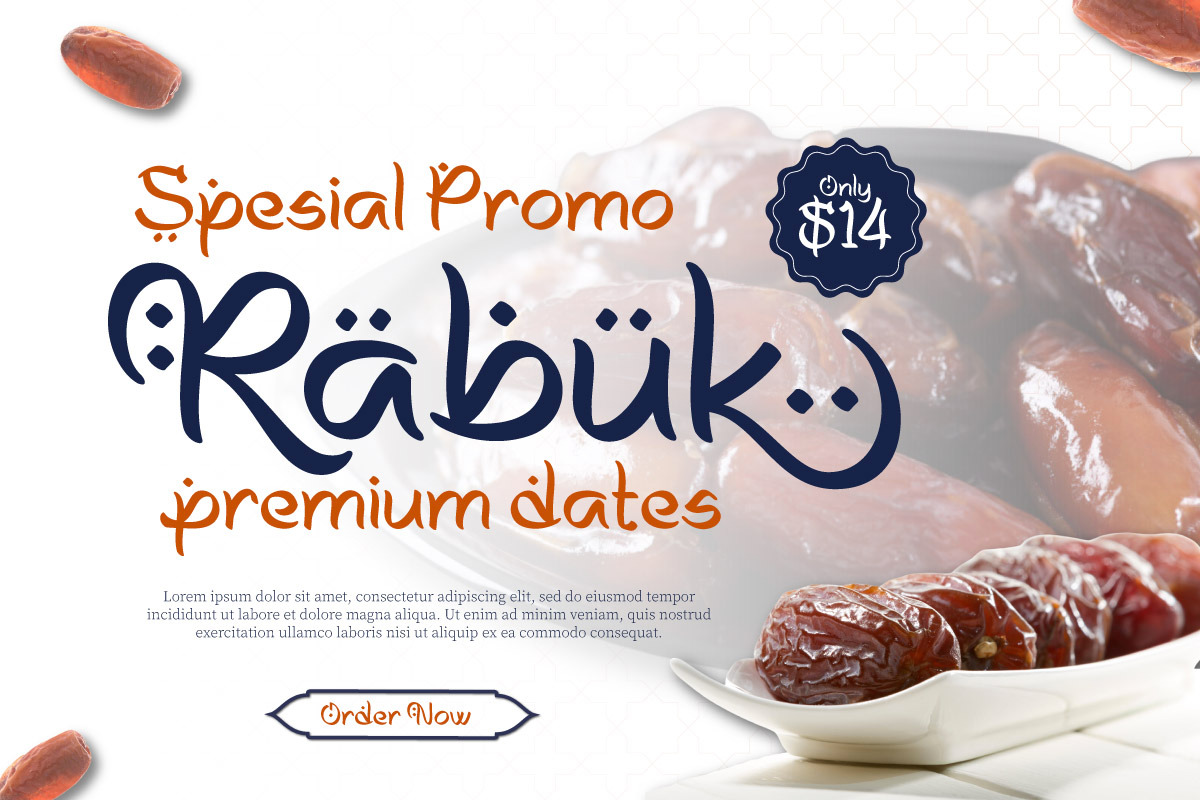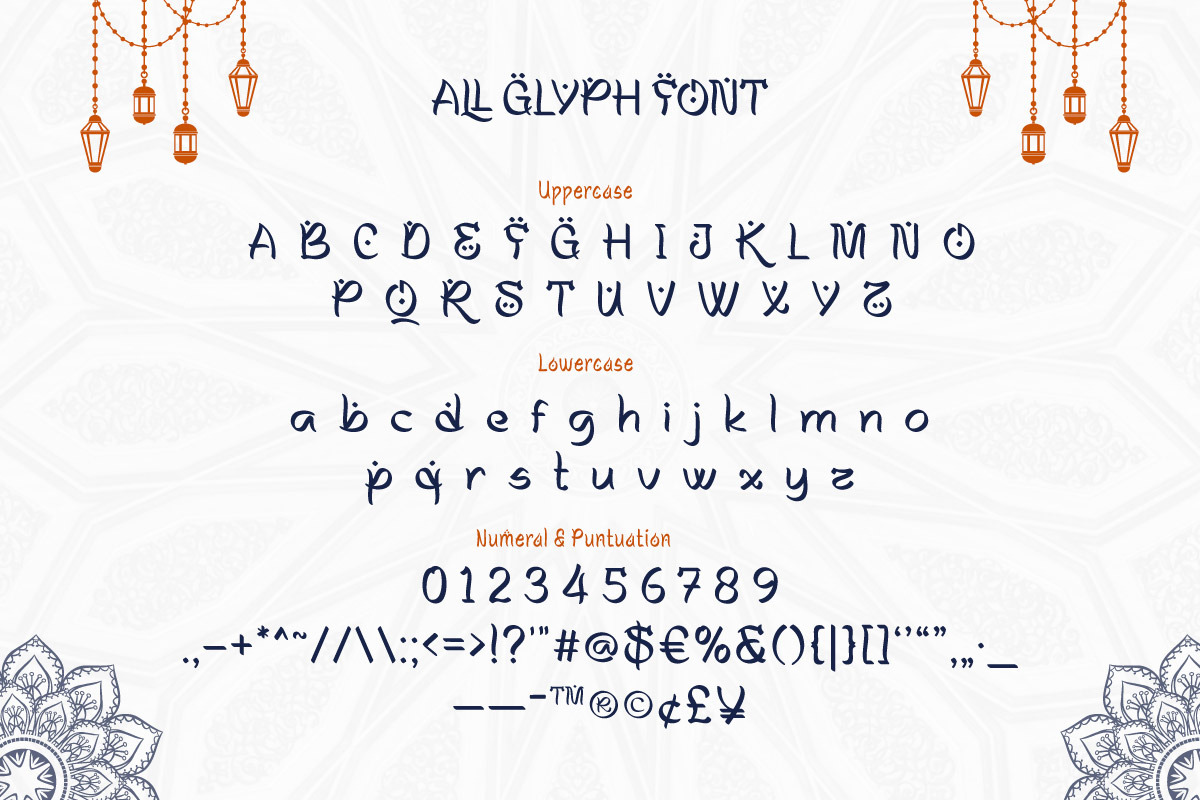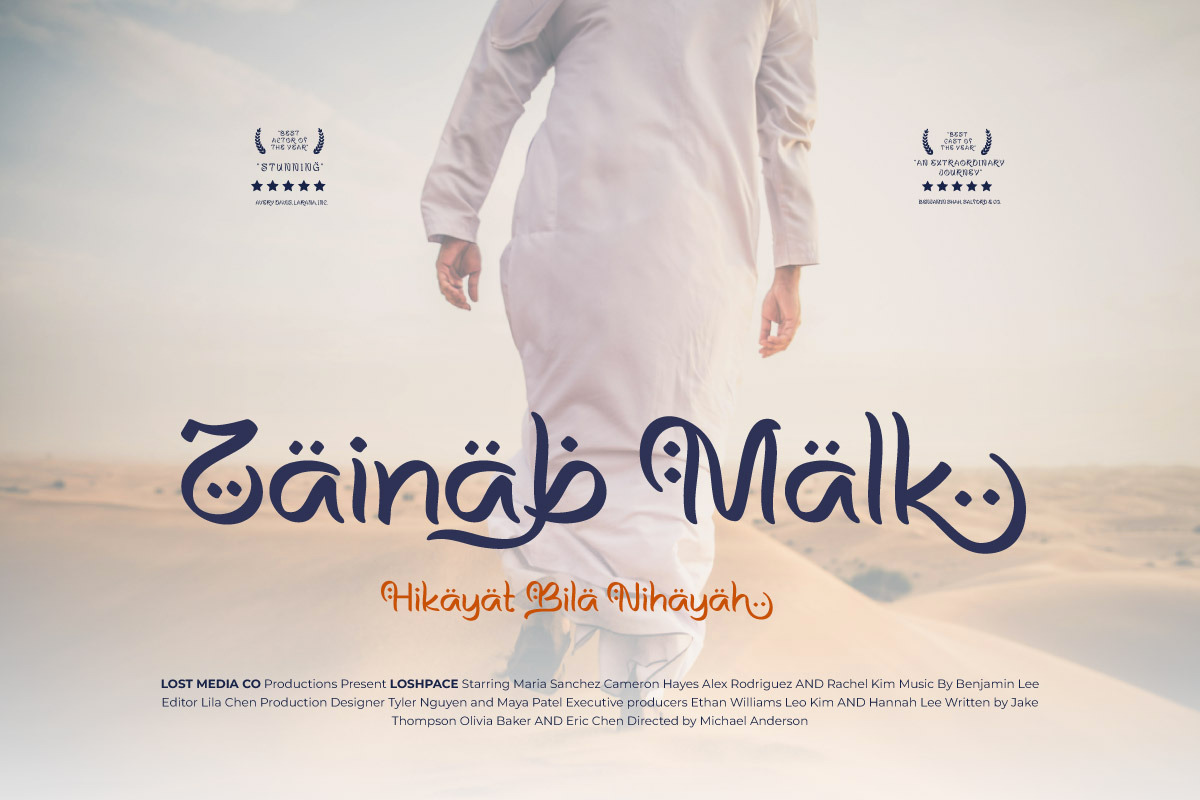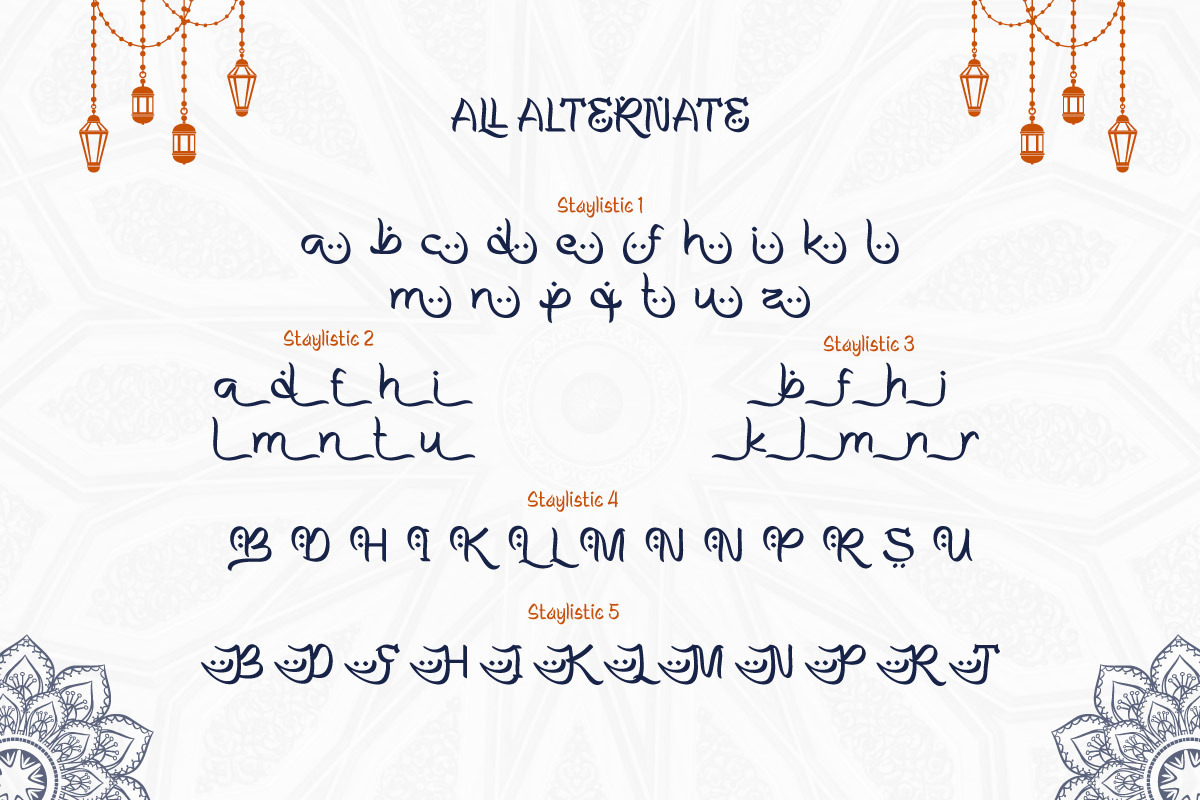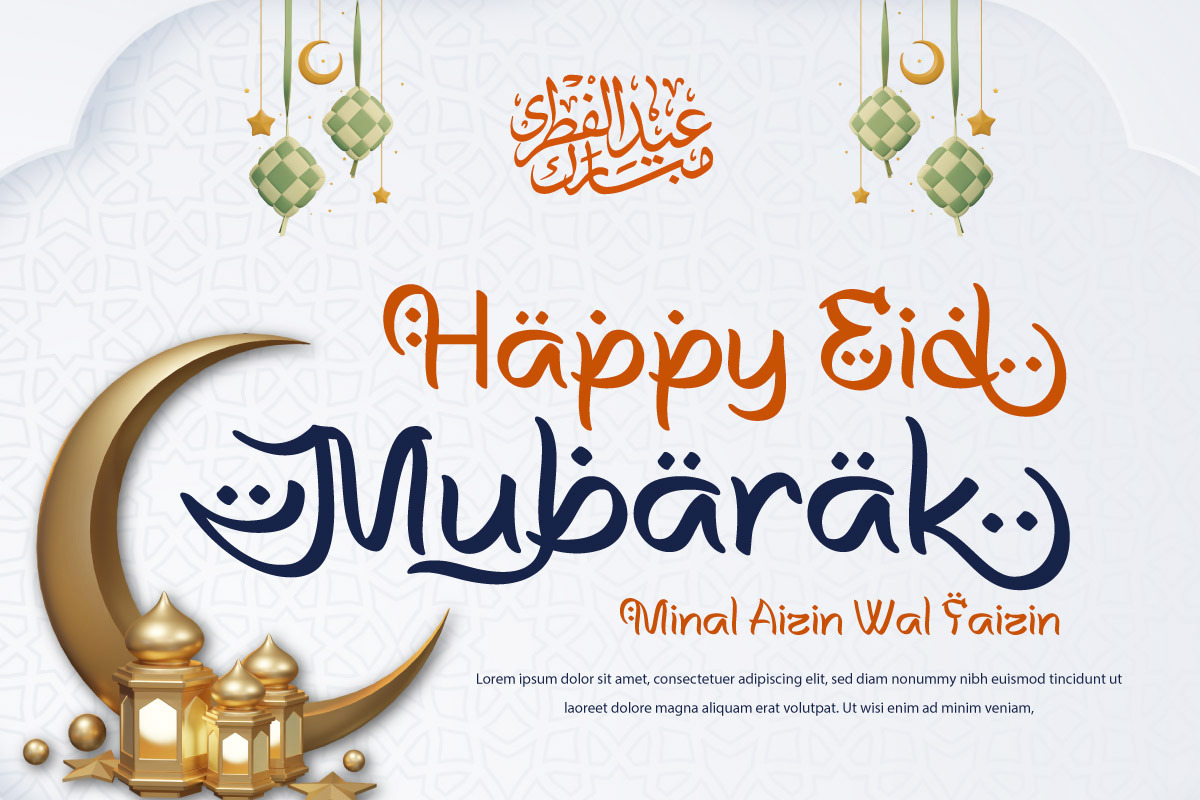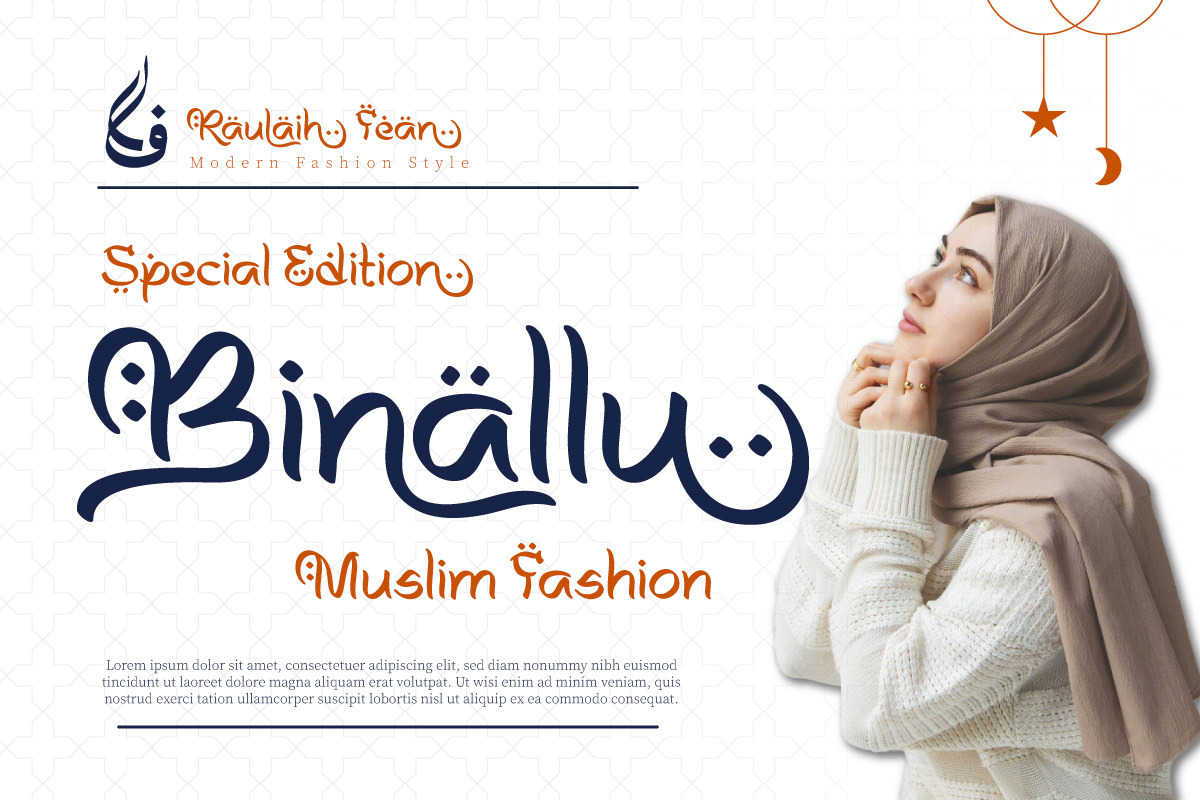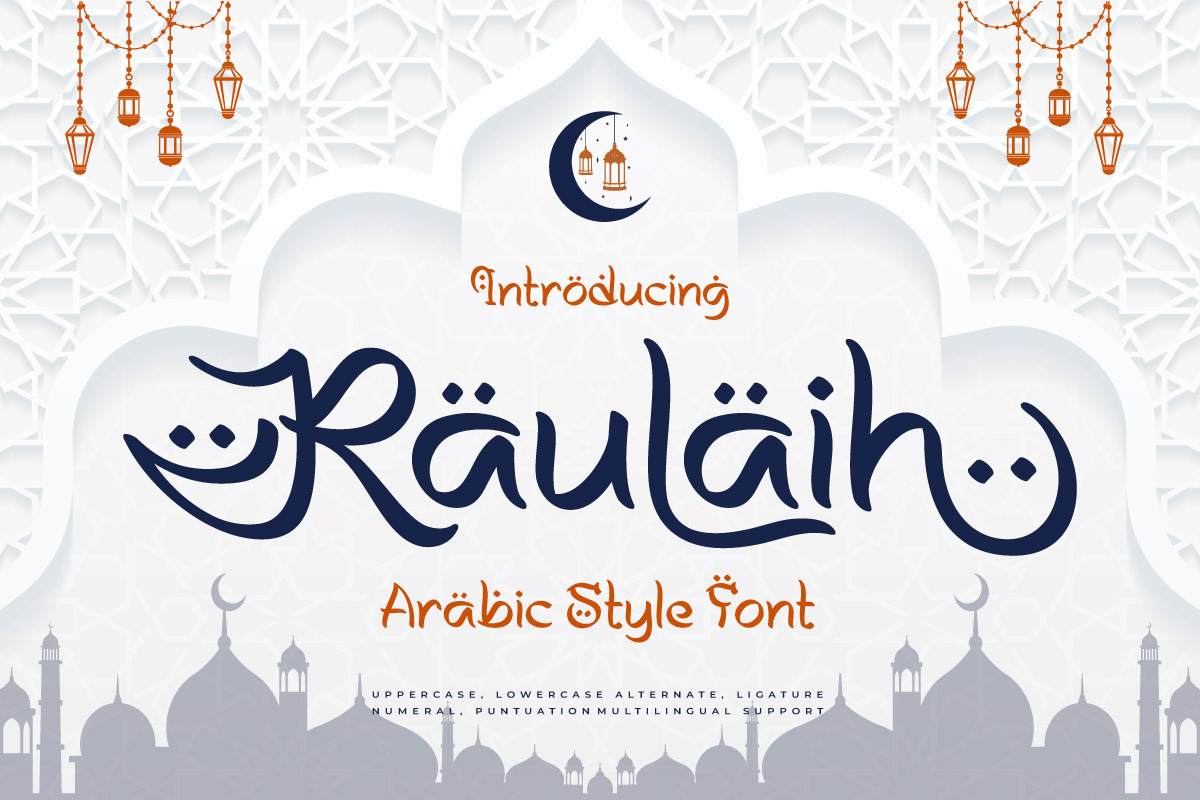
Raulaih - Arabic Style Font
Raulaih - Arabic Style Font is a typeface inspired by traditional Arabic calligraphy, featuring graceful curves and simple lines. Raulaih is ideal for projects that want an elegant cultural touch, such as branding, event invitations, posters, and editorial layouts. This font evokes the timeless beauty of Arabic script, adding depth and a sense of heritage to your designs.
Bring a unique Middle Eastern aesthetic to your creations with Raulaih and enhance it with its cultural elegance.